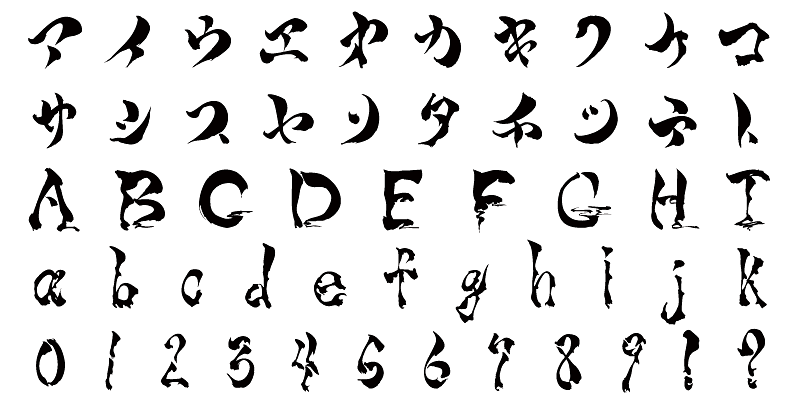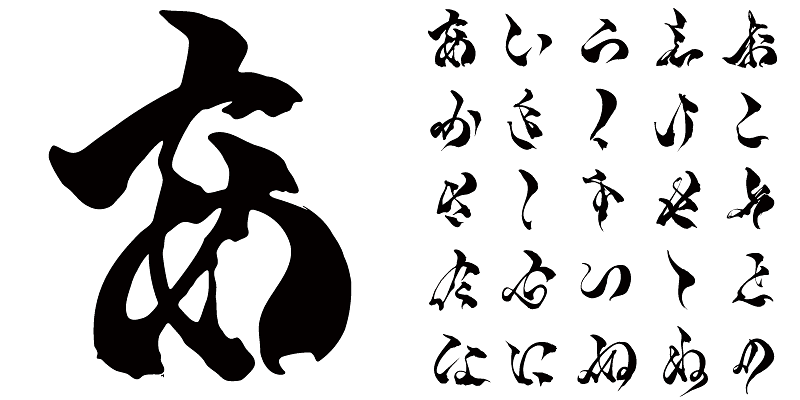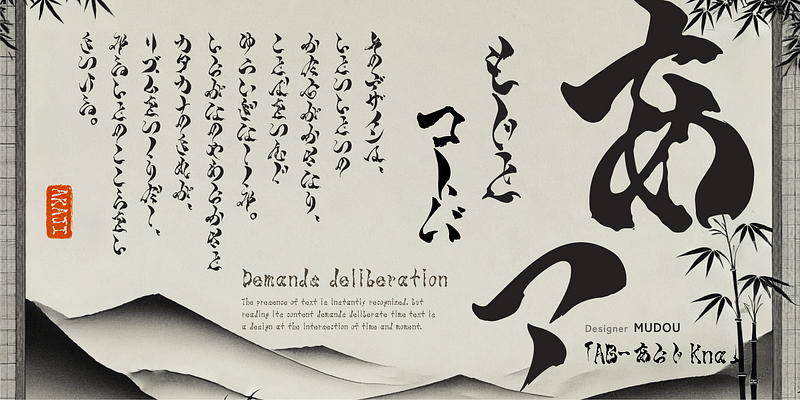
The characters of this typeface have rough and rugged shapes. This design emphasizes the distinguishable parts of the characters to create a visual impact. However, when used in text, it intentionally obscures readability. It was created as a typeface that subtly incorporates accents that evoke a sense of uneasiness.
This font is a kana subset font that primarily includes kana characters and some non-kanji characters.